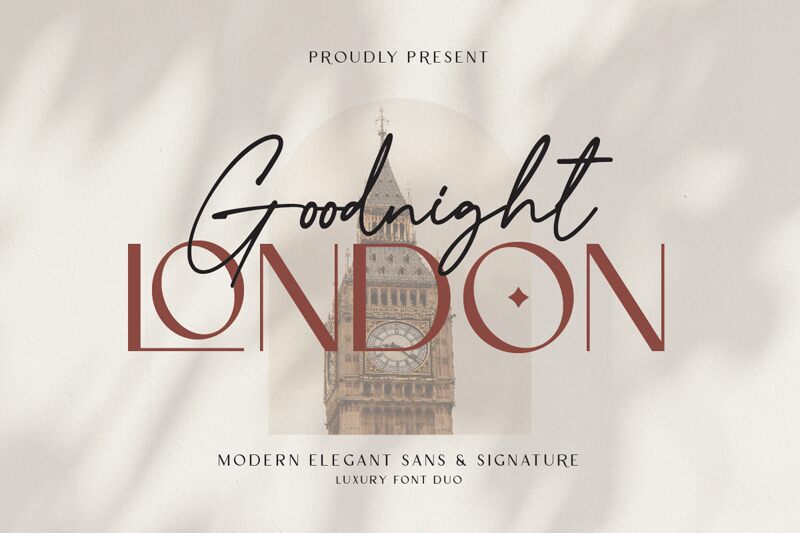
Goodnight London Sans is a sleek and modern sans serif font designed by Ronny Studio. With a light weight and clean lines, this font is perfect for minimalist designs, including logos, websites, and business cards. Goodnight London Sans is versatile and sophisticated, making it suitable for a range of projects. Its simplicity and elegance will take your designs to the next level.
Goodnight London Sans
Ronny Studio